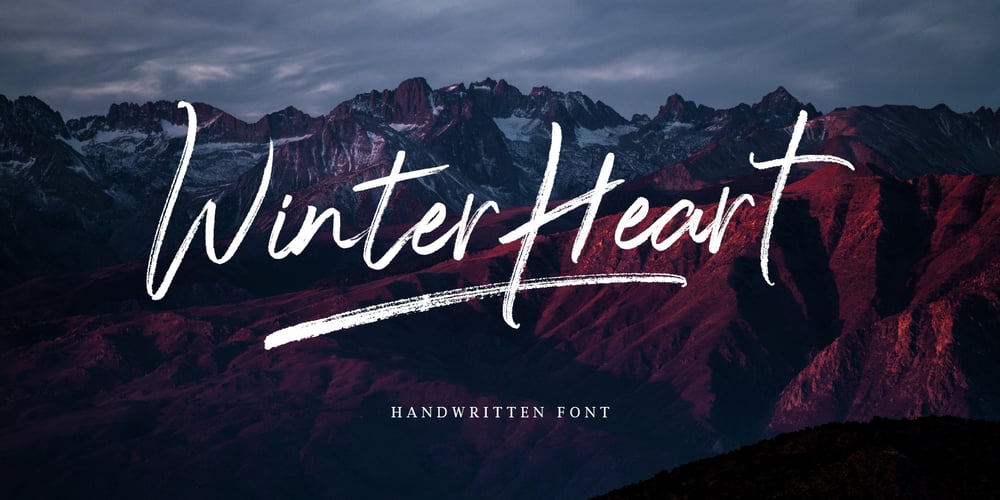
Winter Heart Font Family was designed by Alam Syahril and published by Realtype. Winter Heart contains 3 styles and family package options. Winter Heart, a handwriting brush with awesome character. Winter Heart is a natural, smooth and stylish brush font. This font will give you a design that looks fresh and modern.